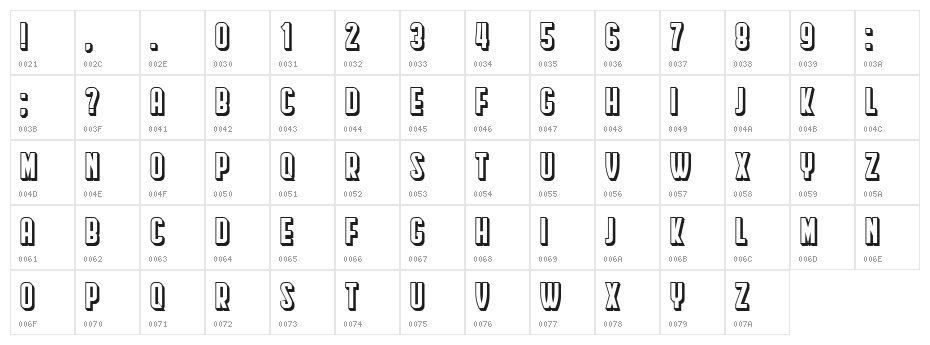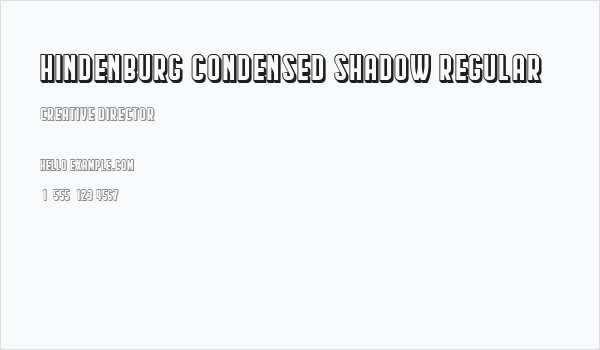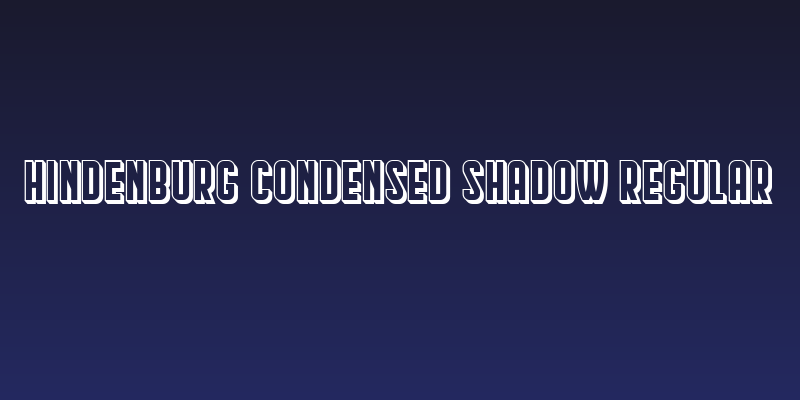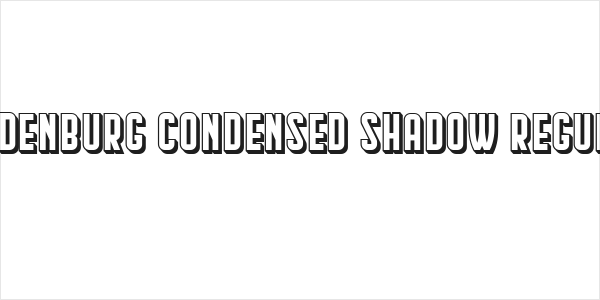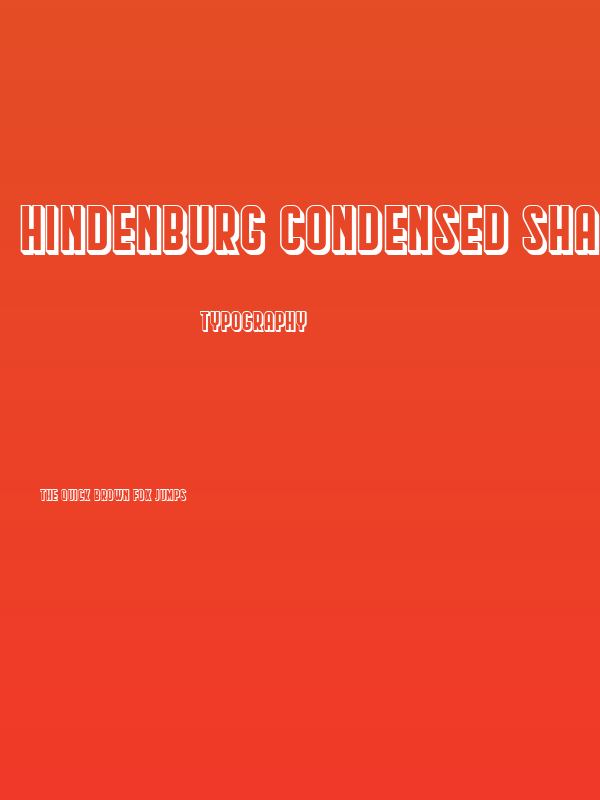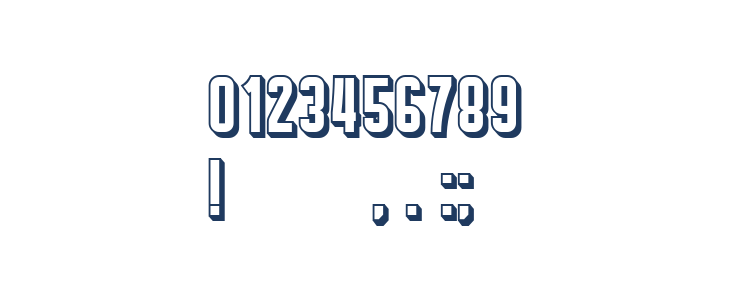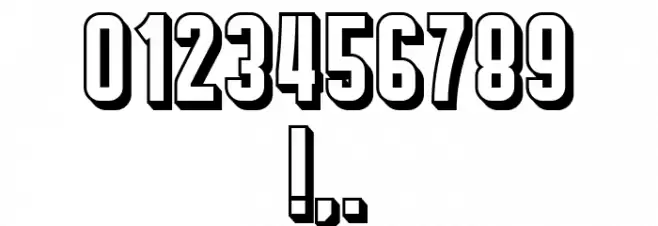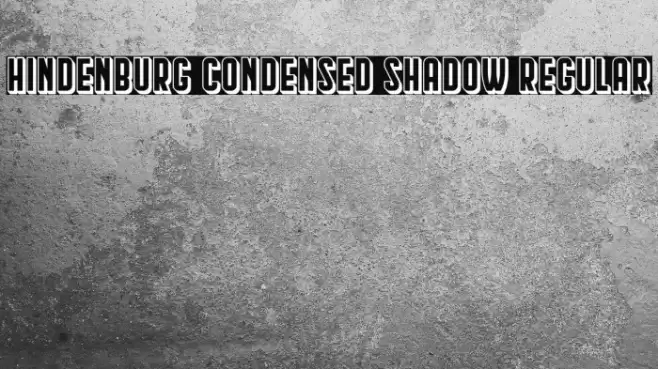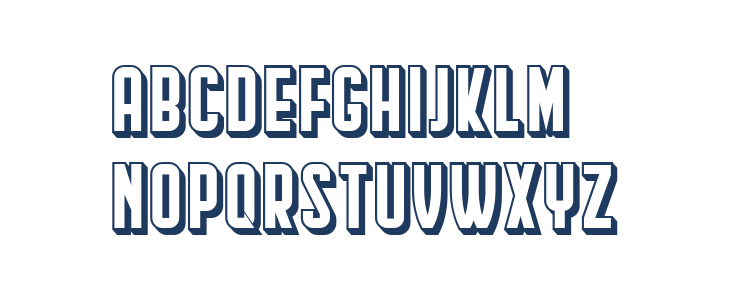
Hindenburg Condensed Shadow Regular Font
This font features a bold, condensed style with a distinct shadow effect that gives it a three-dimensional appearance. The uppercase letters are prominent and commanding, making them ideal for attention-grabbing headlines. The characters are tightly spaced, enhancing the compact look of the font. The shadow adds depth, creating a striking visual impact. The numbers and punctuation maintain the same bold and shadowed characteristics, ensuring consistency across all characters. This font's unique style is both modern and decorative, suitable for projects that require a strong visual presence.
| Proposed Projects | Ideal for posters, signage, logos, and any design needing a bold statement. |